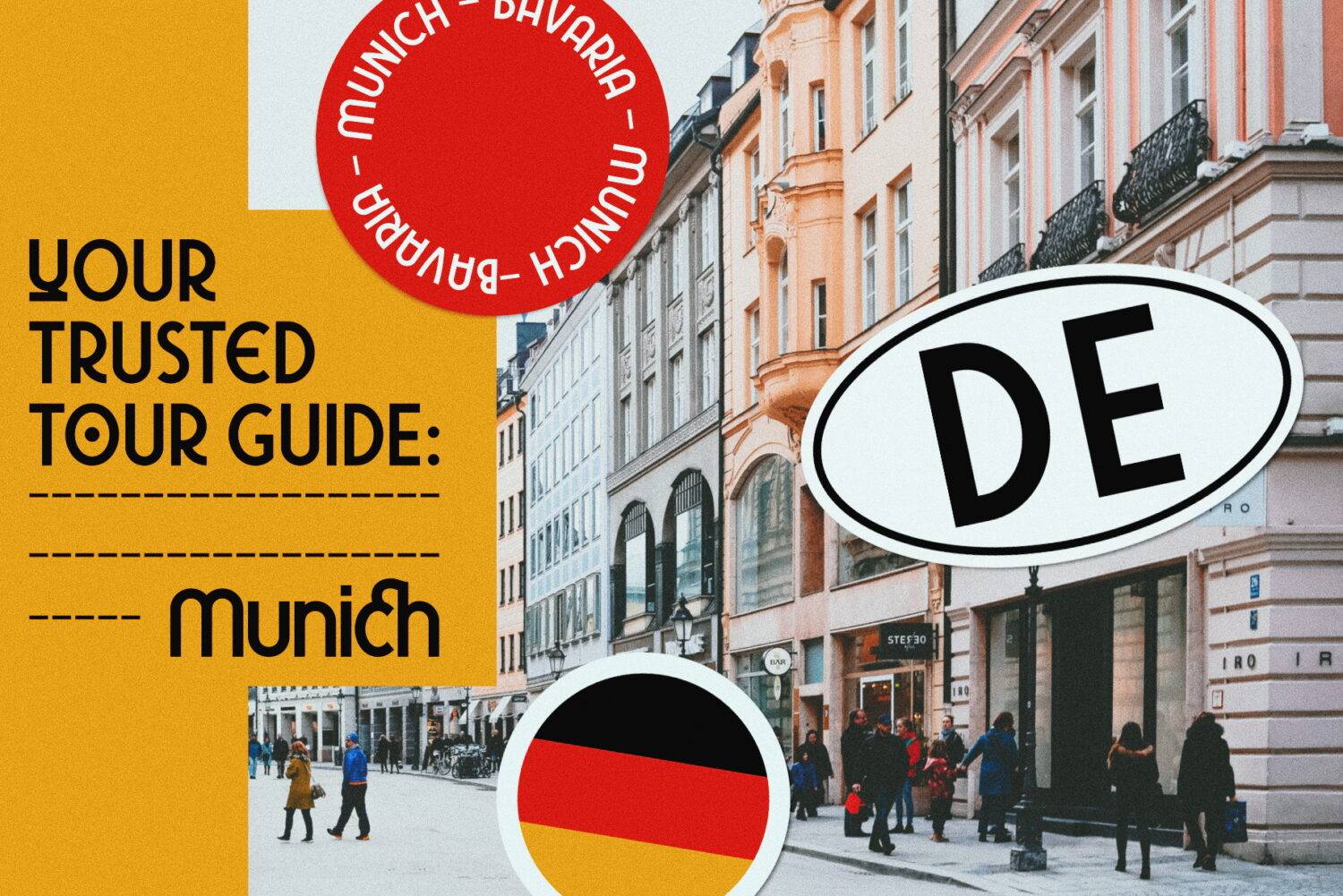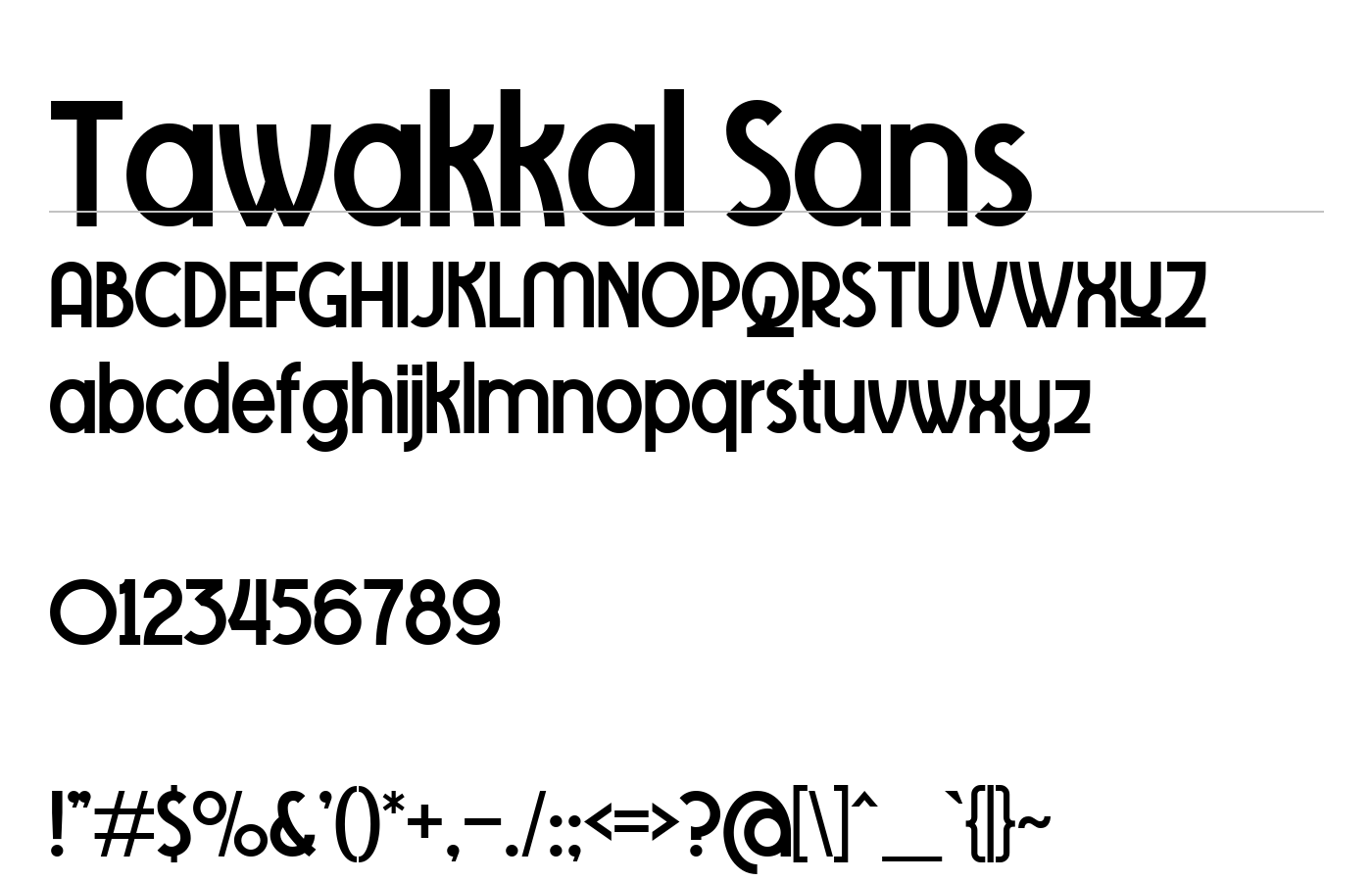
Tawakkal Sans is a bold, modern sans serif font with a clean and slightly condensed structure that emphasizes readability and a strong presence. Its geometric shapes combined with subtle unique quirks in letters like Q and R give it a contemporary and approachable feel, making it ideal for branding, headlines, and editorial use. This font works well in contexts that require clarity and style, such as websites, posters, and packaging, where a confident yet friendly tone is desired.
Tawakkal Sans Font
About Tawakkal Sans Font
| Font family | Tawakkal Sans Font |
| Release date | 2019-05-30 |
| Designer | Twicolabs Fontdation |